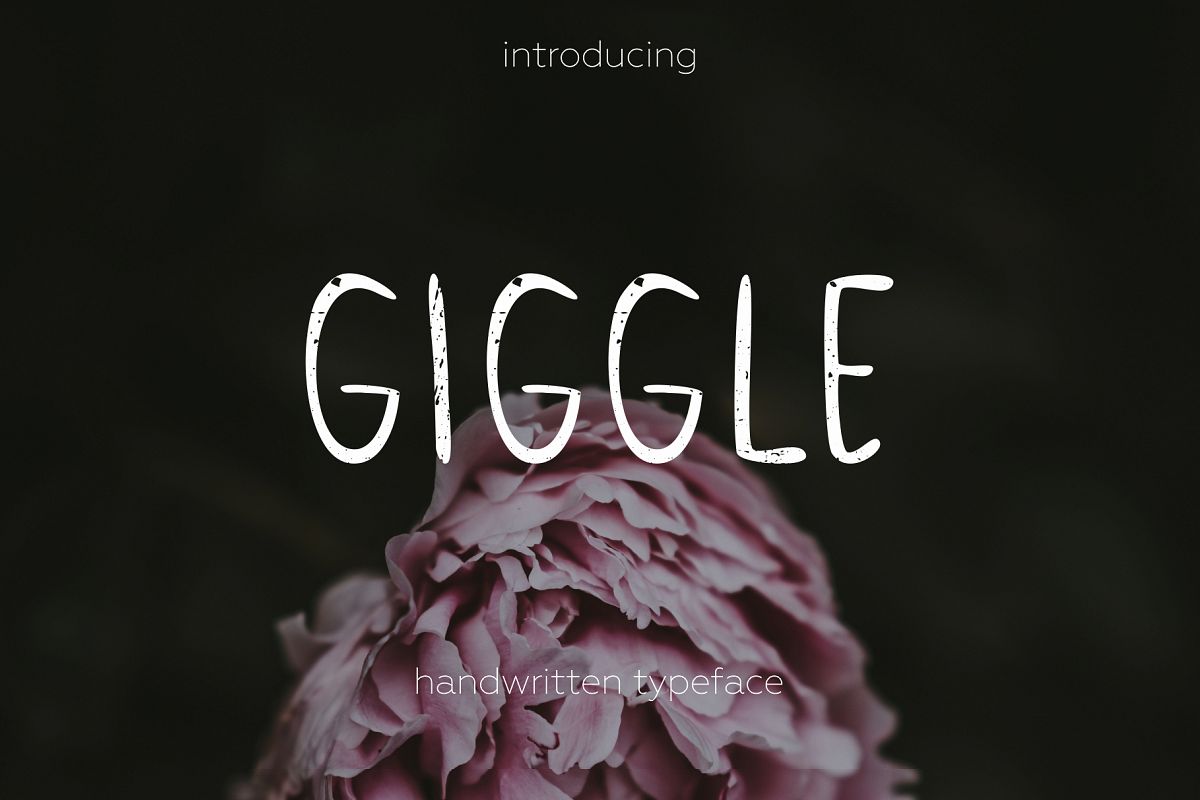
Giggle handwritten typeface.
GiggleScratch
Giggle
Giggle is a handwritten typeface made for fun and social media. Included two font styles: regular and scratched boldy. You can do awesome cover and posts on your blog. Get fun!